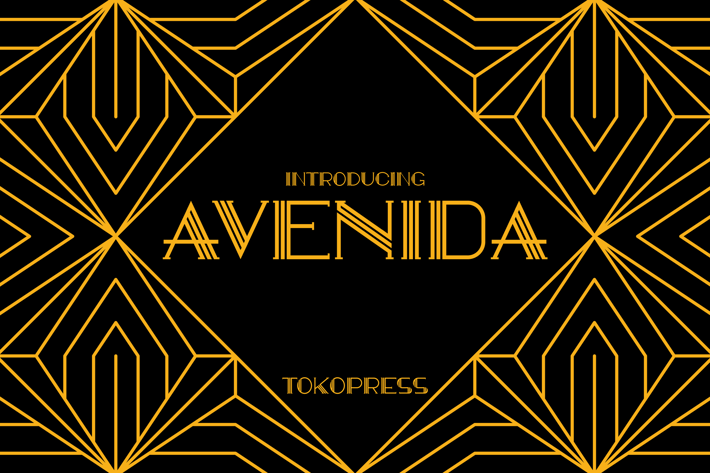
AVENIDA - art deco font
Avenida
Step into a world of modern luxury with AVENIDA, an Art Deco-inspired display font designed for high-end branding and timeless elegance. With clean vertical strokes, sharp terminals, and symmetrical geometric flow, AVENIDA captures the bold essence of 1920s glamour while remaining fresh and versatile for today’s design landscape. Its refined, commanding presence makes it ideal for fashion campaigns, interior design posters, or exclusive packaging—especially where visual drama and sophistication are key.
Whether you’re crafting an upscale logo, designing for a luxury fragrance line, or publishing high-impact editorials, AVENIDA gives your text the golden edge. Its commanding rhythm and symmetrical letterforms create an authoritative tone perfect for magazine headlines, wedding invites, or architectural showcases. This font blends historical richness with contemporary minimalism, making it the secret weapon in your creative toolkit for evoking prestige and refinement.
Key Features :
Bold Deco Elegance with Modern Versatility
- Strong vertical strokes & geometric symmetry
- High legibility for editorial and branding use
- Elegant contrast – pairs well with modern minimal layouts
Design-Ready for Professional Use
- Perfect for luxury branding, lifestyle packaging, poster design, wedding invitations, and social media
- Sophisticated yet adaptable across high-end market niches
Effortlessly Stylish
- Instantly evokes a sense of glamour and exclusivity
- Ideal for product labels, magazine covers, and hotel brochures
AVENIDA isn’t just a font—it’s an experience. Whether you're designing for luxury goods, modern decor, or editorial layouts, this typeface brings style, structure, and story to your work. Don’t just blend in—stand out with timeless deco flair. Download AVENIDA now and give your next project the high-impact finish it deserves.